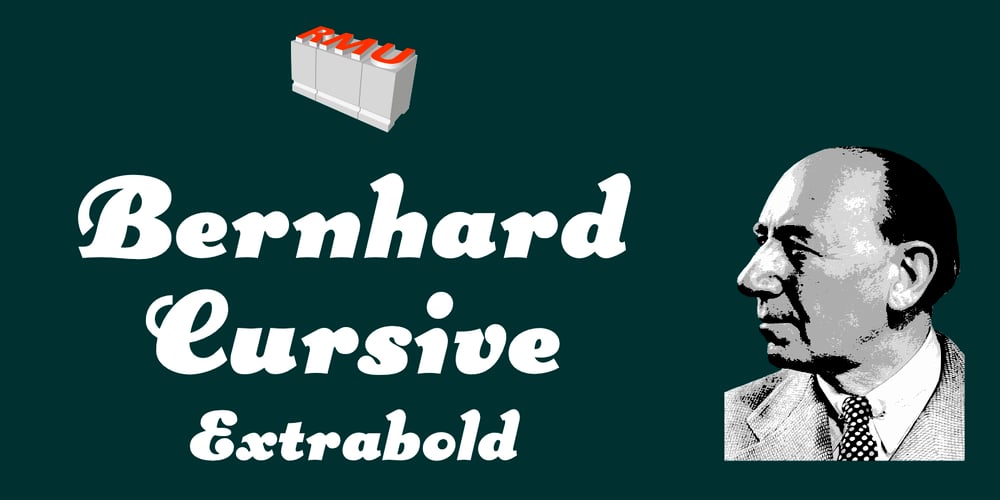
Bernhard Cursive
Bernhard Cursive Font Family was designed by Ralph M. Unger and published by RMU. Bernhard Cursive contains 1 styles and family package options. Bernhard Cursive ExtraBold is one of Lucian Bernhard’s most expressive fonts which are worth to get preserved for now and times to come. An ideal font face for advertisements, posters, flyers, titles and subtitles.